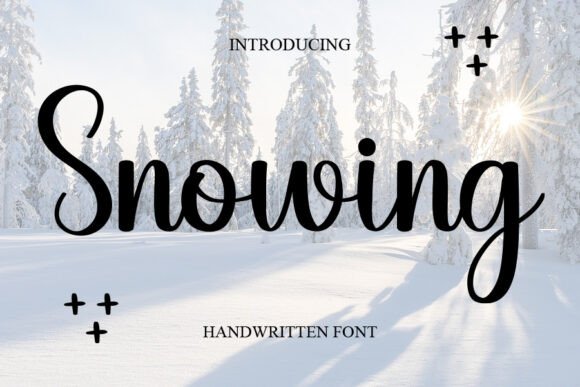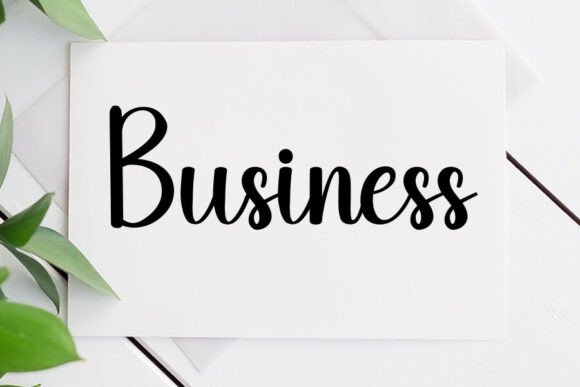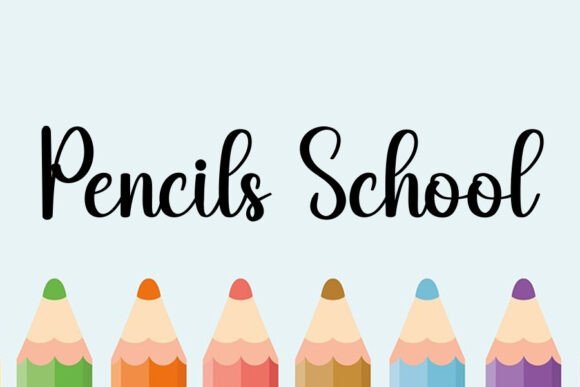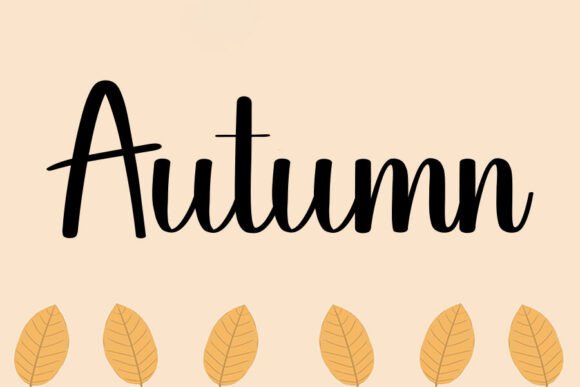
Snowing Font: Sweet Cursive Handwritten Font for Wedding & Branding!
About the Snowing Font
Introducing the Snowing Font, a beautifully crafted typeface designed to elevate your creative projects. Snowing is a sweet and cursive handwritten font. This gentle font will look gorgeous on a variety of design ideas. It will add a joyful and romantic touch to each of your projects! Perfectly fit for branding, logo, wedding things, greeting cards, fashion, lookbook, marketing promotion, and any time you want your design to look fancy and elegant but still casual.